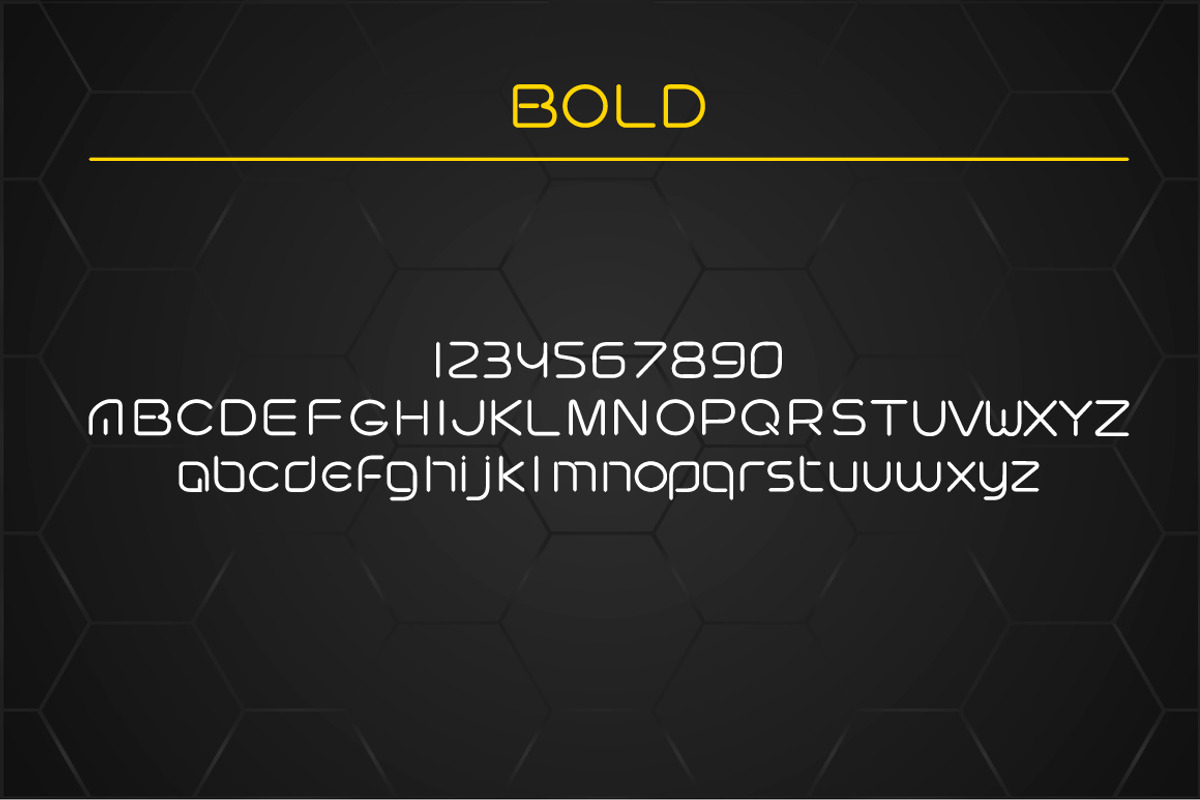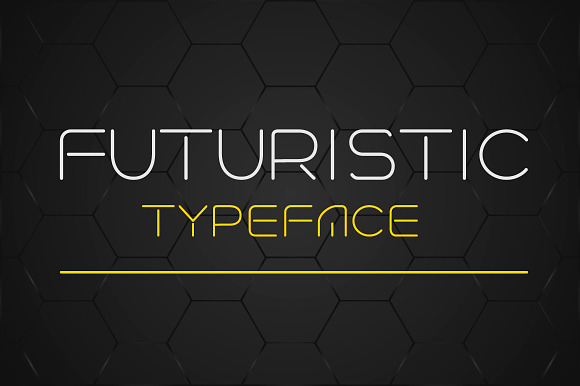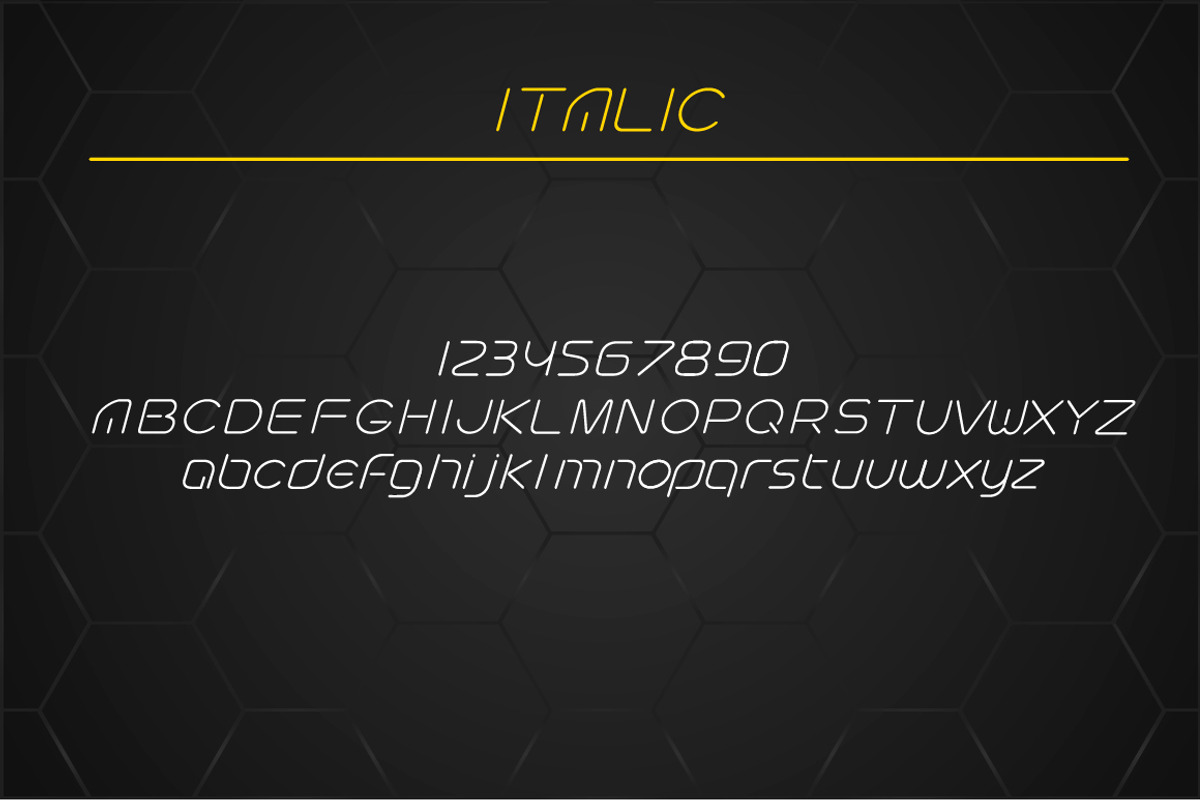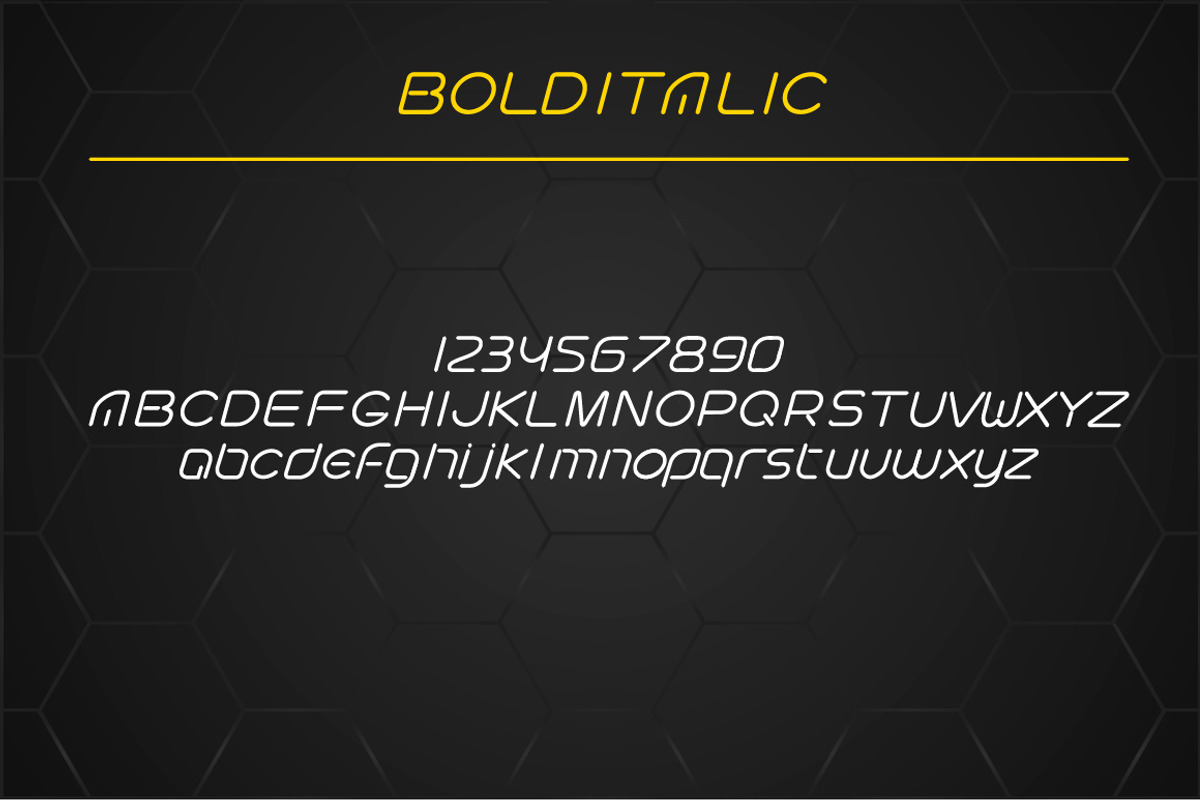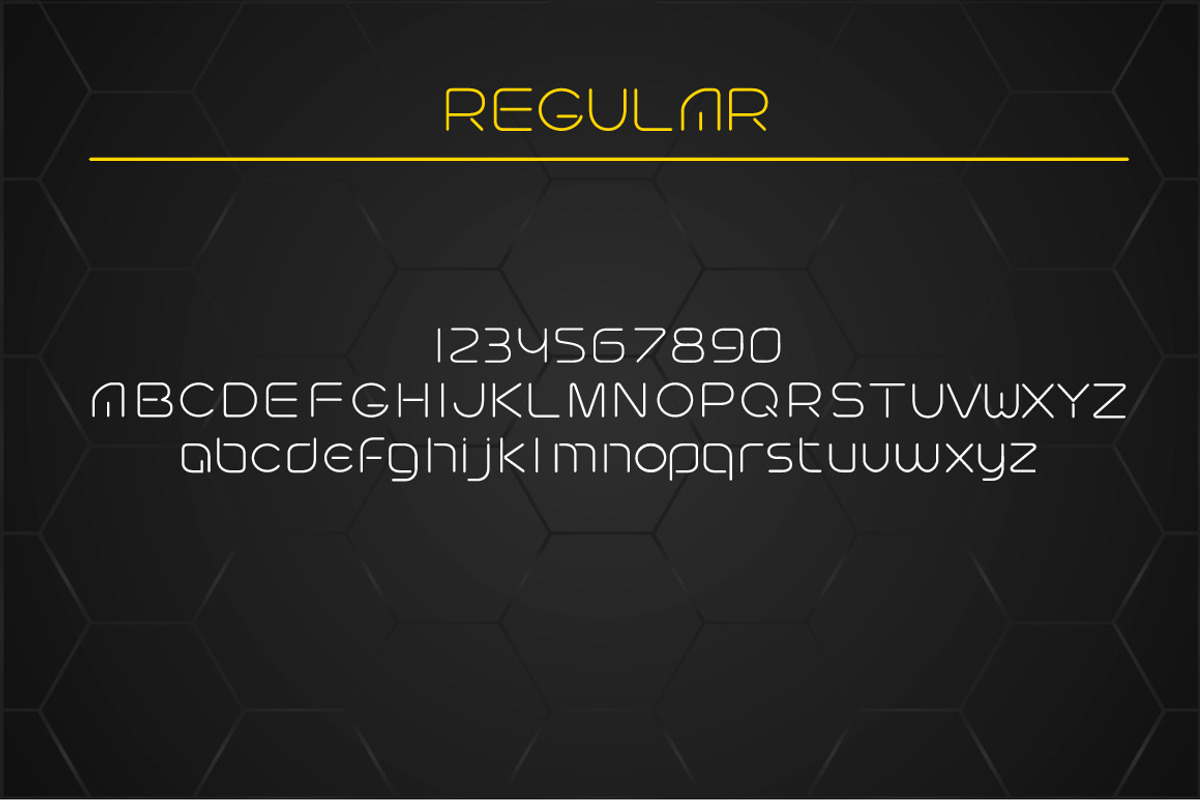
Futuristic linear style typeface.
Why Futuristic linear style typeface. is worth a look
Futuristic linear style typeface. by Fractal fonts & graphics fits naturally into Branding, posters, packaging, typography.